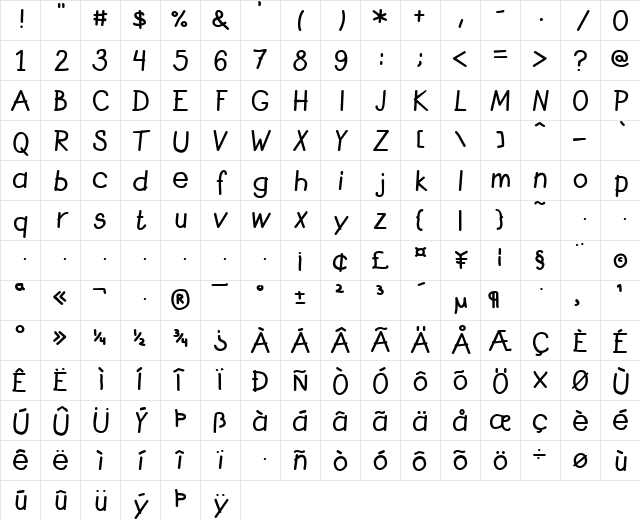
Sebran3 Regular Free Font
Sebran3 Regular
Design Context for Sebran3
Sebran3 is a composed and adaptable typeface that performs quietly and consistently across a wide range of design contexts.